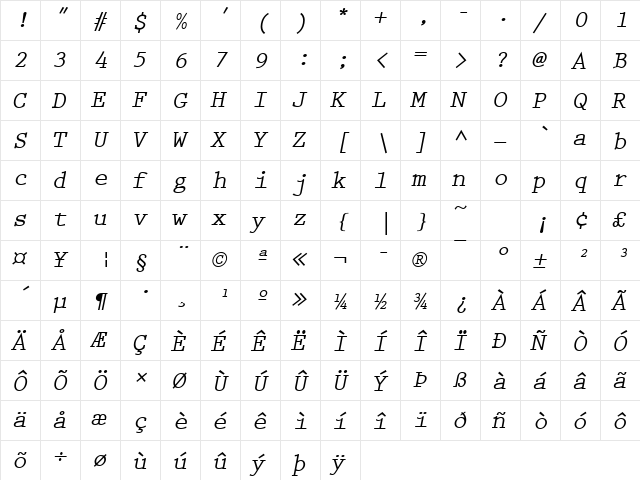
Prestige Becker Bold Oblique
Design Context for Prestige Becker Typeface
Prestige Becker takes a measured approach to typography — its balanced proportions and neutral character make it a reliable workhorse for both digital and print work. The dynamic lean of this cut emphasises speed and emphasis in any layout. Its bold stroke weight gives it real presence on the page.
Pro Tip: Use Prestige Becker for emphasis, pull quotes, and subheadings where its slanted energy can add rhythm to the layout.